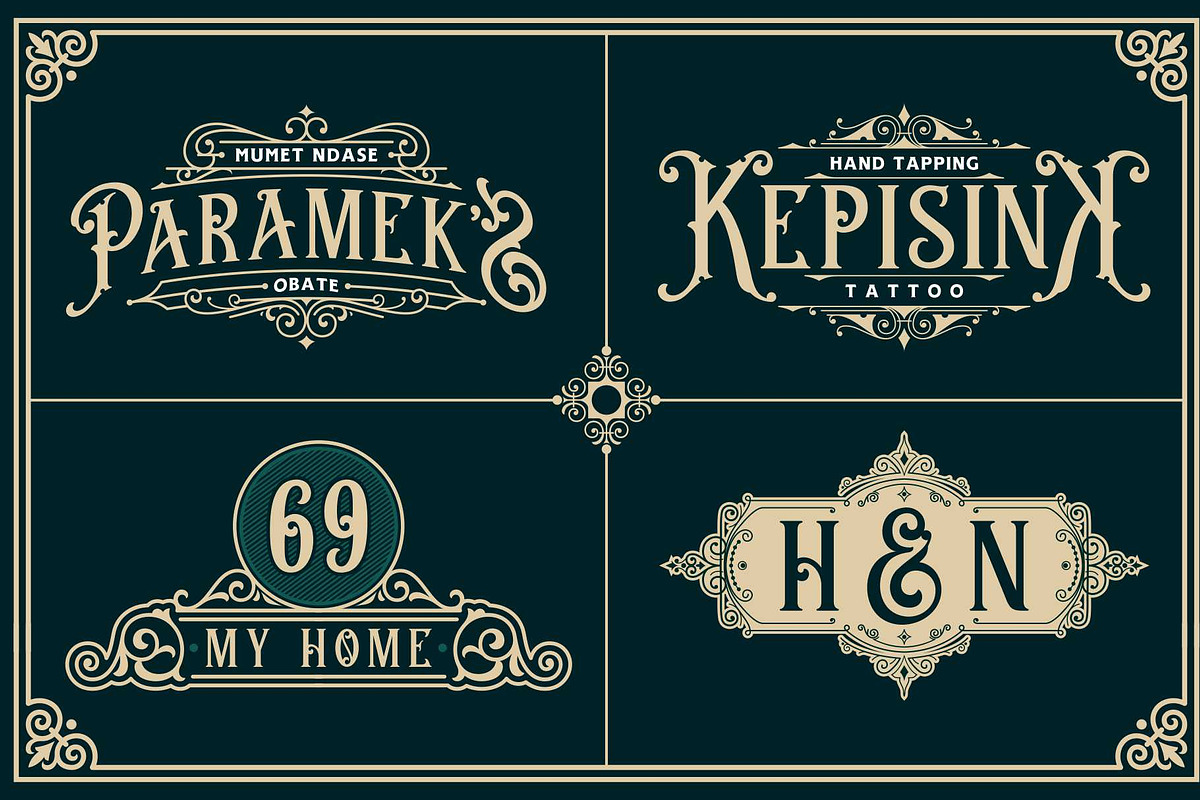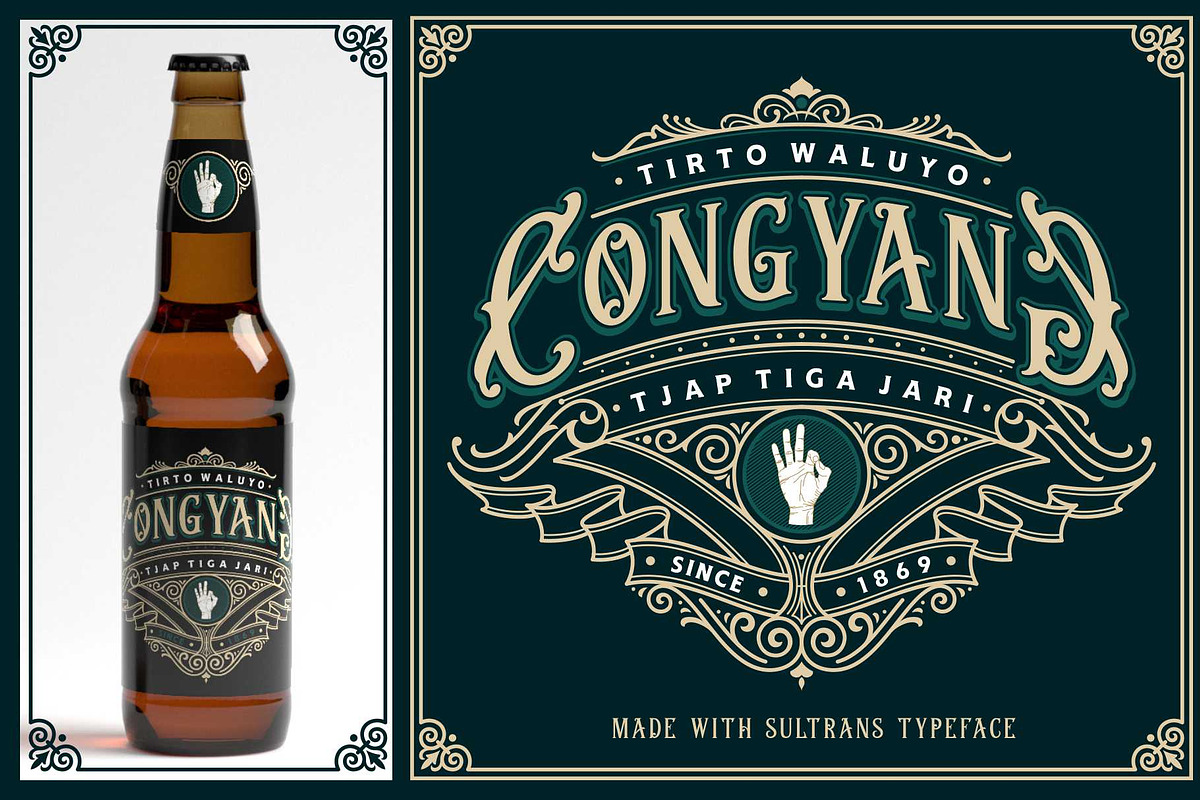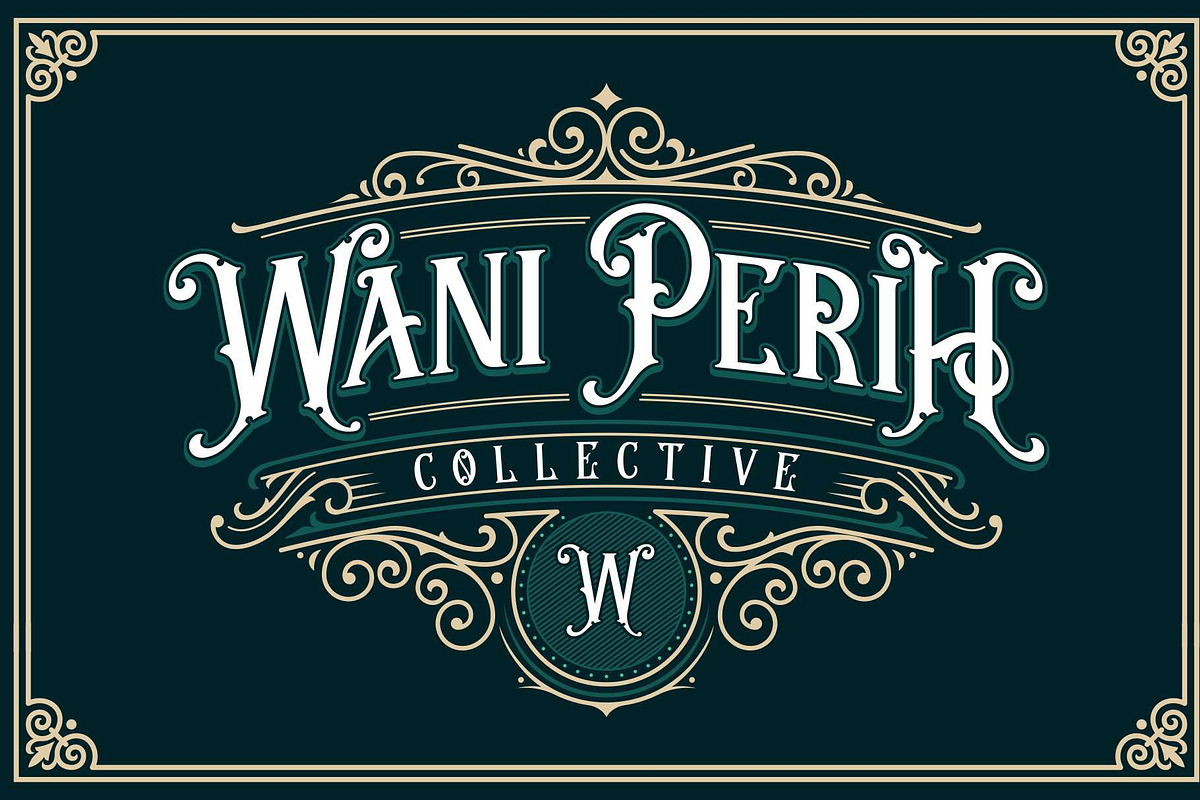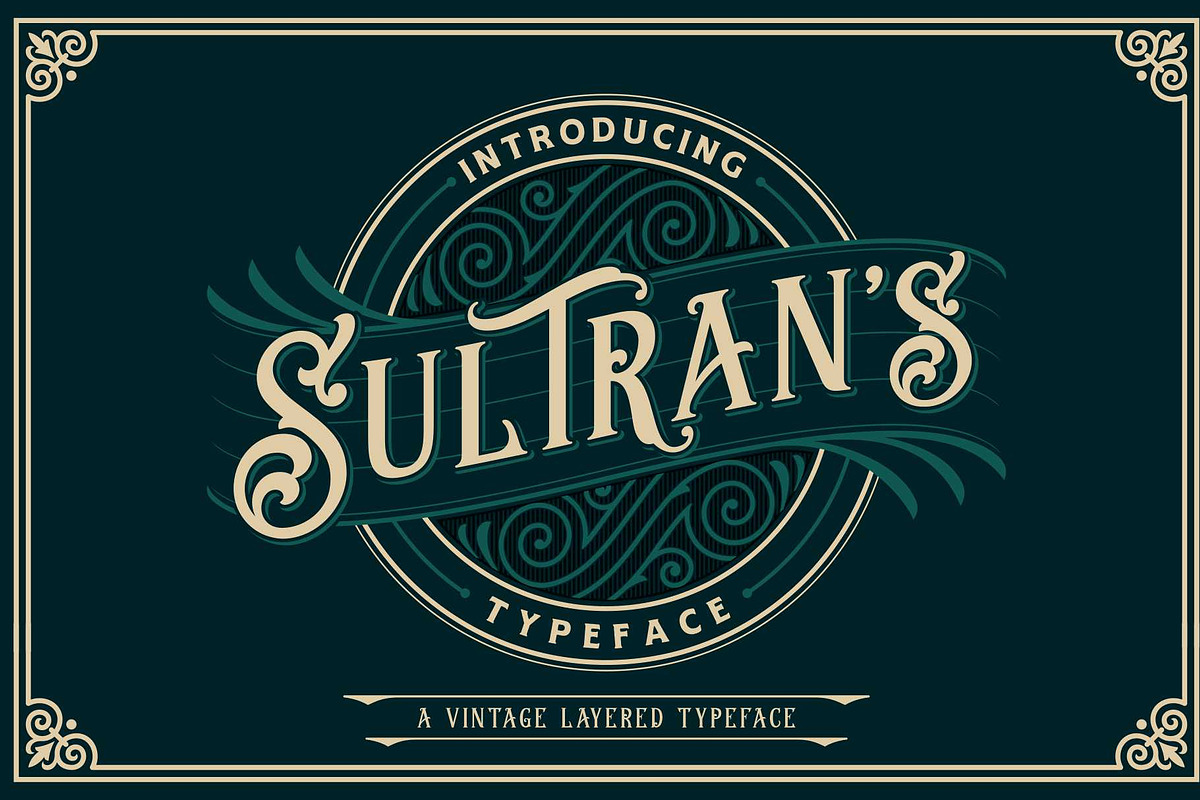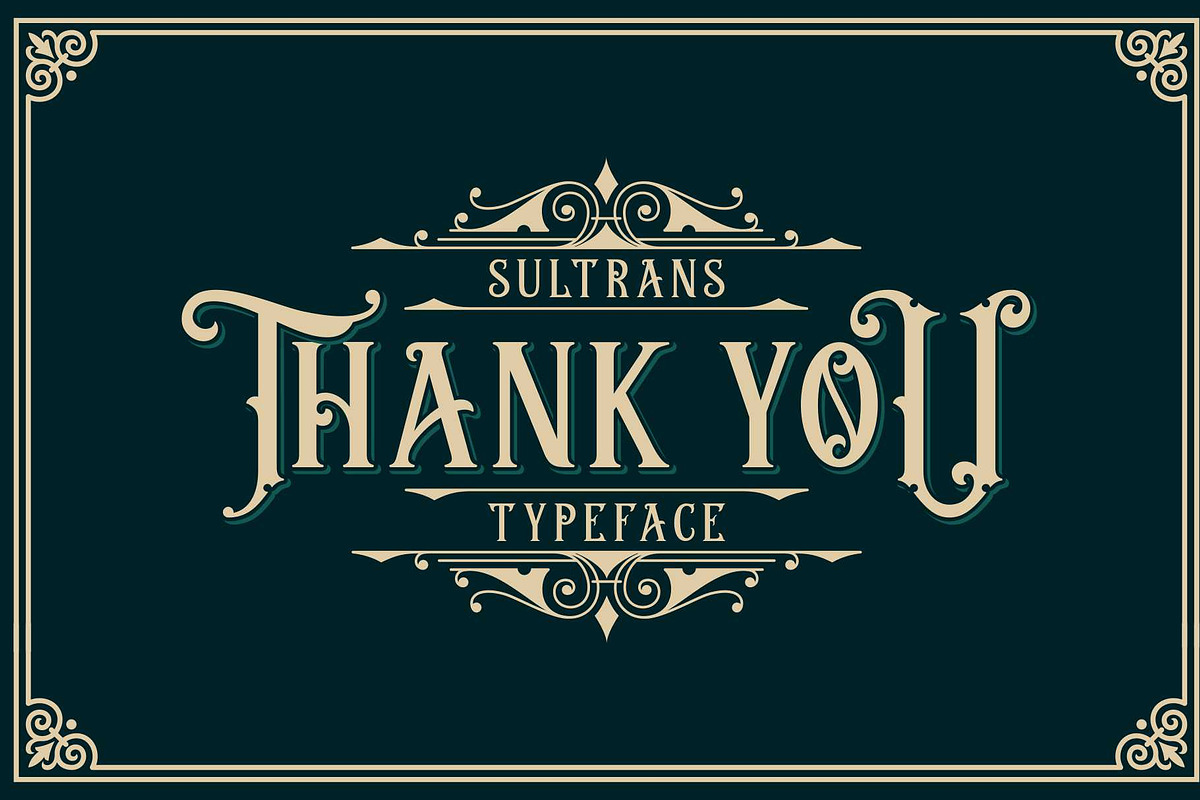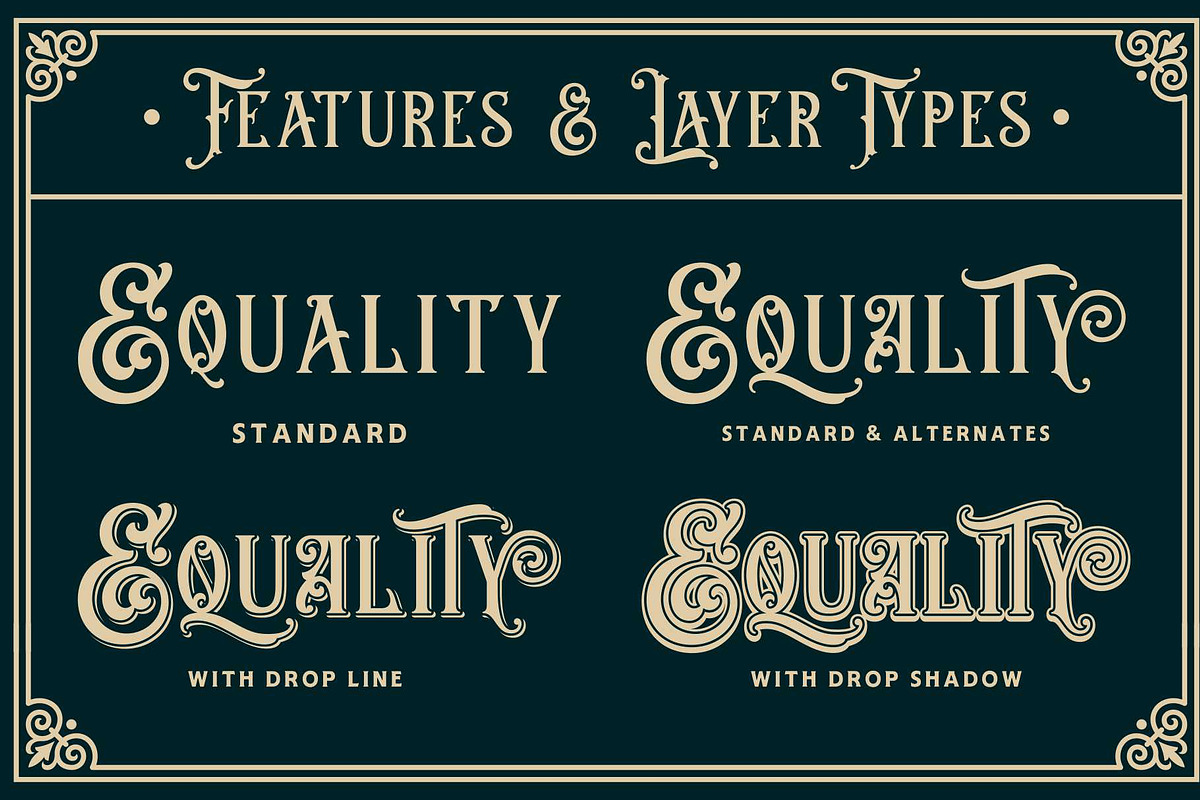
Sultrans Typeface
Sultrans Typeface is a multi-layered type family with opentype features, inspired by javanese culture vintage that have ornamental shapes. Sultrans Typeface comes with 3 font system that can be layered to create different effect to improve your design (Regular, Drop Shadow and Drop Line). Sultrans Perfect for vintage, logotype, clothing, label and badge design.
- Sultrans Typeface comes with 3 font system that can be layered to create different effect to improve your design (Regular, Drop Shadow and D